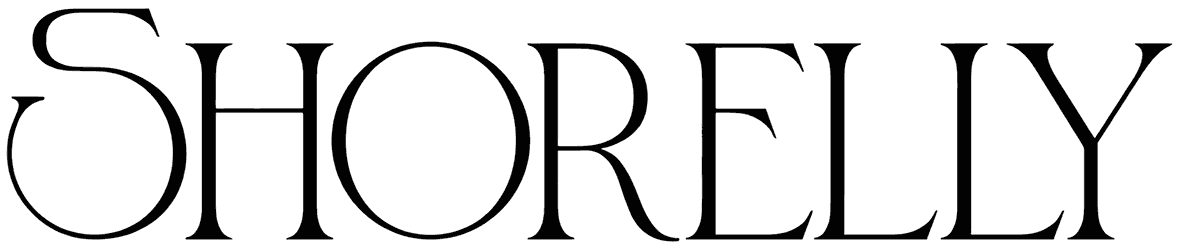
Shorelly Font
Differentiate your design from similar items with a unique idea, such as choosing a vintage outward for your words. Shorelly font is a retro font with classic adorned serif letters that can throw a charming mood into your layout.
No cover for lowercase letters, but you have two sets of capital letters with distinct details. If you like Shorelly, set it on your subsequent designs, such as movie posters, flyers, logotypes, tags, or so forth, and be impressive.